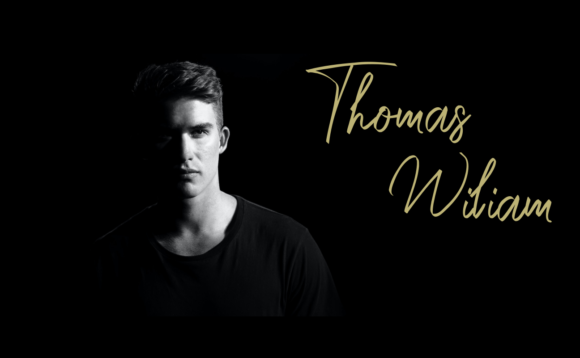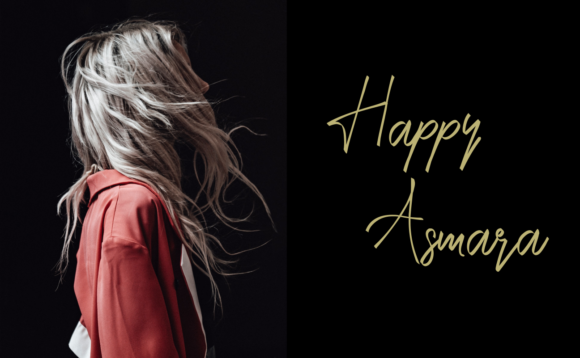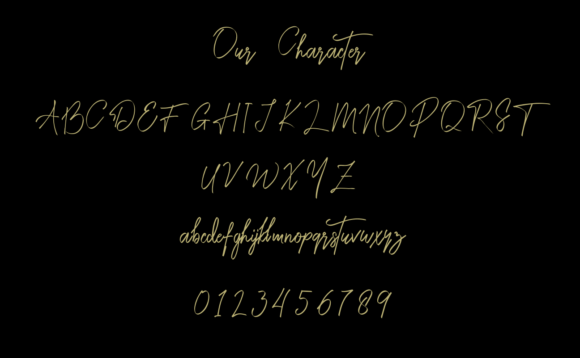
Samantha Pastel Font
About Samantha Pastel Font
Samantha Pastel is a relaxed and lovely handwritten font. It looks stunning on wedding invitations, thank you cards, quotes, greeting cards, logos, business cards, and every other design which needs a customized touch.